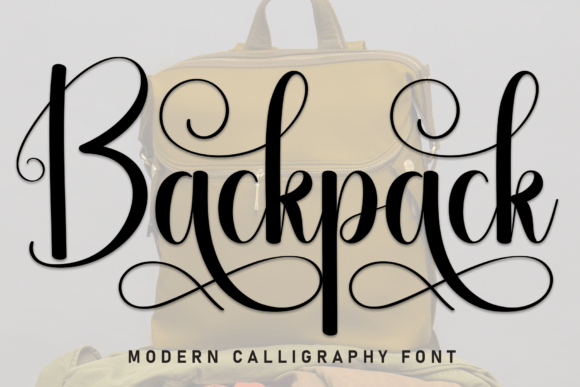
Introducing Backpack Font: The Sweet and Friendly Handwritten Font for Your Creative Projects
Are you looking for a font that can add a fun and playful touch to your designs? Look no further than Backpack Font! This sweet and friendly handwritten font is perfect for creating wedding invitations, cards, and other designs that require a personal and whimsical feel. In this article, we’ll take a closer look at Backpack Font, its features, and how you can use it to elevate your creative projects.
What is Backpack Font?
Backpack Font is a beautiful handwritten font that is designed to bring a sense of fun and friendliness to your designs. Its sweet and approachable style makes it perfect for a wide range of creative projects, from wedding invitations and cards to posters, flyers, and more. Whether you’re a designer, crafter, or DIY enthusiast, Backpack Font is a great addition to your font collection.
Key Features of Backpack Font
So, what makes Backpack Font so special? Here are some of its key features:
- Handwritten style: Backpack Font has a beautiful handwritten style that gives it a personal and unique feel.
- Cute and fun: This font is designed to be fun and playful, making it perfect for designs that require a lighthearted touch.
- Versatile: Backpack Font can be used for a wide range of creative projects, from wedding invitations to posters and flyers.
- Easy to read: Despite its playful style, Backpack Font is easy to read, making it perfect for body text and headlines.
Uses for Backpack Font
So, what can you use Backpack Font for? Here are some ideas to get you started:
- Wedding invitations: Backpack Font is perfect for creating beautiful and unique wedding invitations that set the tone for a special day.
- Cards and stationery: This font is great for creating fun and playful cards and stationery for birthdays, holidays, and other special occasions.
- Posters and flyers: Backpack Font can add a fun and eye-catching touch to your posters and flyers, making them perfect for advertising events, products, or services.
- DIY projects: If you’re a crafter or DIY enthusiast, Backpack Font is a great addition to your font collection. Use it to create signs, labels, and other decorative elements for your projects.
Tips for Using Backpack Font
Here are some tips for using Backpack Font in your designs:
- Pair it with other fonts: Backpack Font looks great when paired with other fonts, such as serif or sans-serif fonts. Experiment with different combinations to find the perfect look for your design.
- Use it for headlines and body text: Backpack Font is easy to read, making it perfect for both headlines and body text.
- Experiment with colors and textures: Add some extra visual interest to your design by experimenting with different colors and textures.
Backpack Font is a sweet and friendly handwritten font that is perfect for adding a fun and playful touch to your designs. With its versatile style, ease of use, and wide range of applications, it’s a great addition to any font collection. Whether you’re a designer, crafter, or DIY enthusiast, Backpack Font is sure to become one of your go-to fonts for creative projects. So why not give it a try and see what amazing designs you can create?